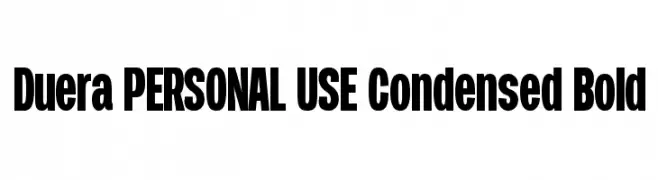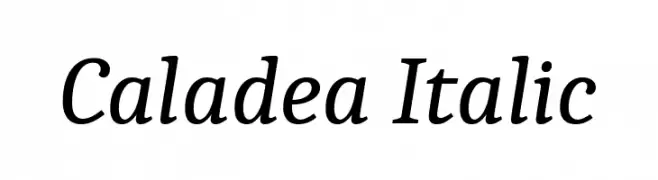
A bold, rounded font with a modern and playful style.
A bold, condensed typeface perfect for impactful headlines.
An elegant italic serif font with smooth curves and sharp serifs.
A modern serif font with balanced proportions and moderate contrast, offering elegance and readability.
A graffiti-inspired font with bold, sweeping lines and a dynamic, urban aesthetic.
A bold, distressed font with a grunge texture and rugged appearance.
A bold, serif typeface with strong, thick strokes and a classic design.